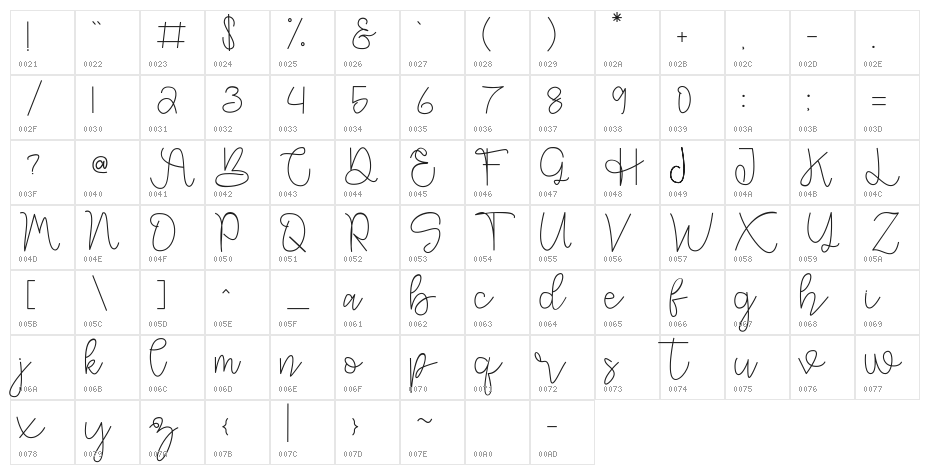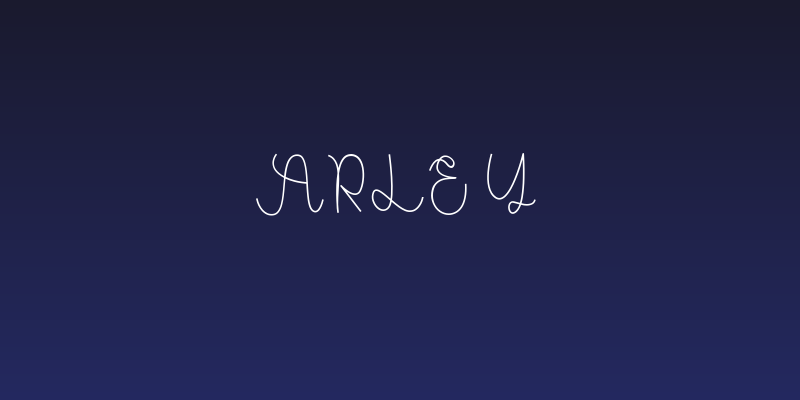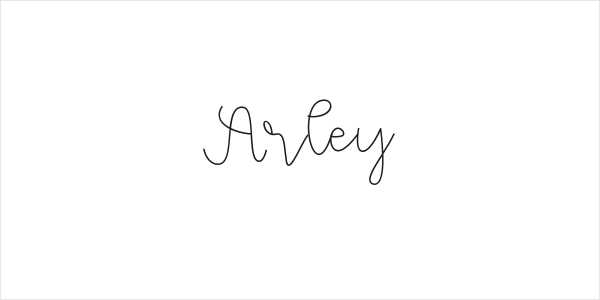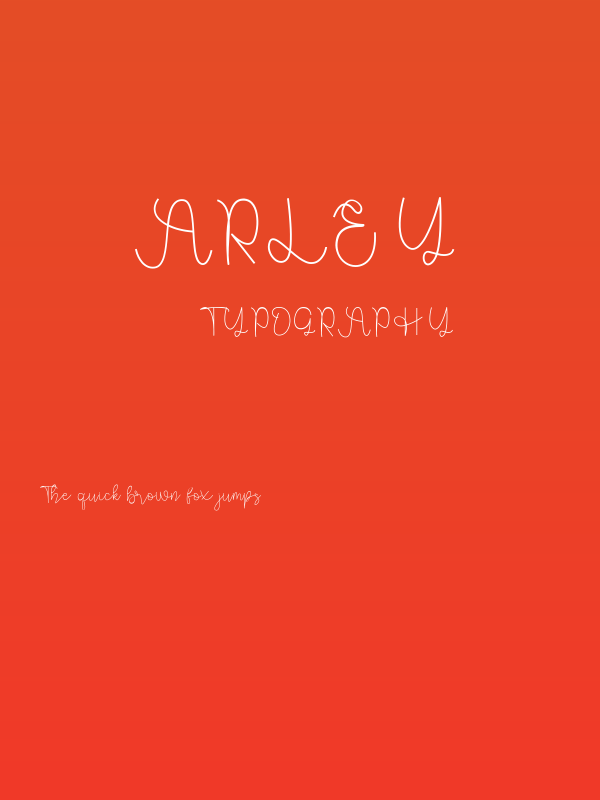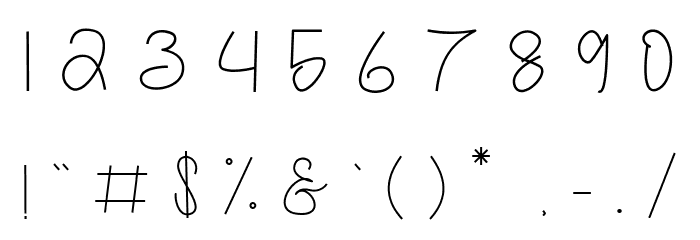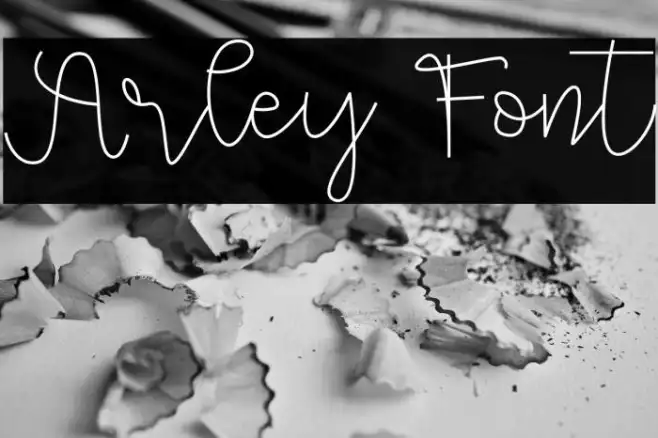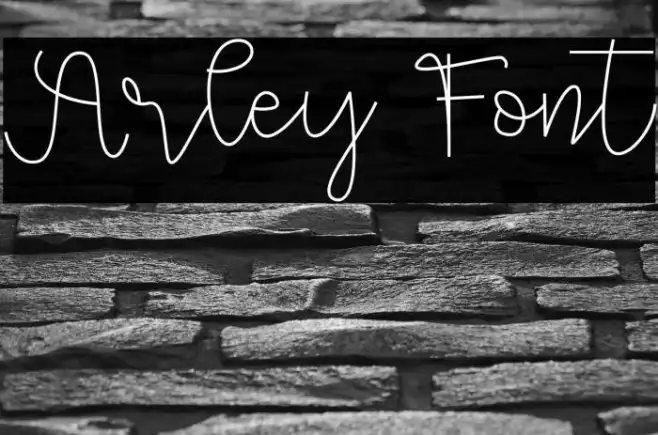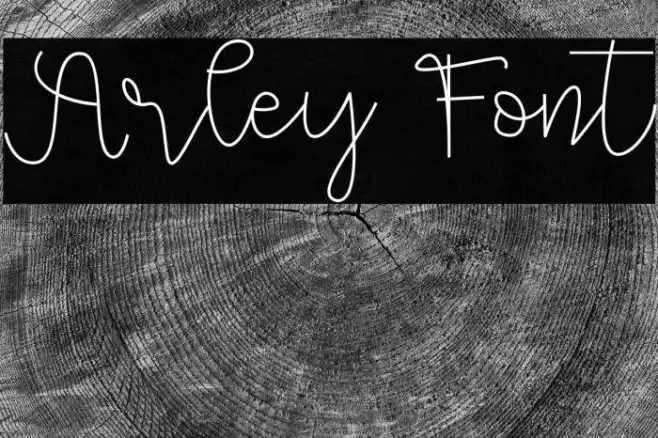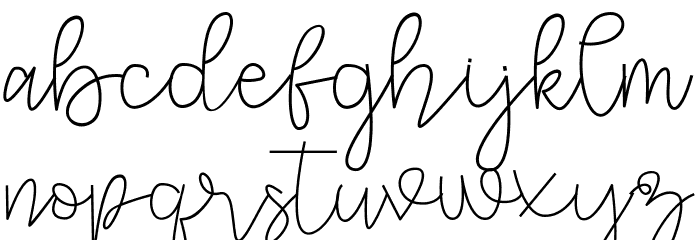
Arley Font
Arley Description
This font features a playful and whimsical script style, characterized by its flowing, interconnected letters. The uppercase letters exhibit a unique blend of curves and loops, giving them a lively and dynamic appearance. The lowercase letters maintain a consistent flow, with some letters extending below the baseline, adding to the font's casual elegance. The numerals are rounded and maintain the same playful style, ensuring consistency throughout. Special characters are creatively designed, complementing the overall aesthetic. This font is ideal for projects that require a personal touch, such as invitations, greeting cards, or branding materials.